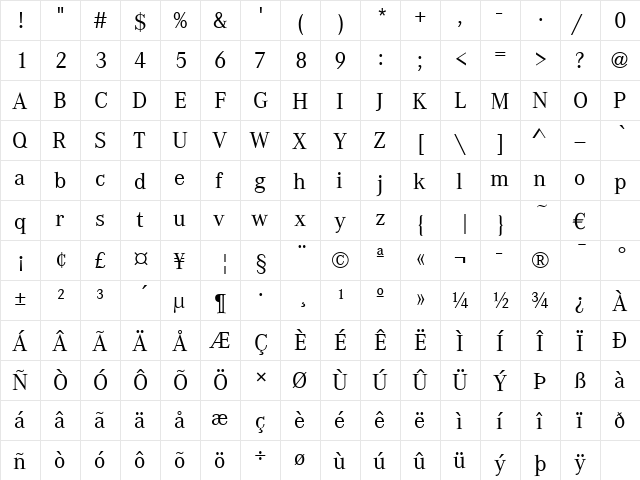
CorpoA Regular
Design Context for CorpoA Typeface
CorpoA is a composed and adaptable typeface that performs quietly and consistently across a wide range of design contexts.